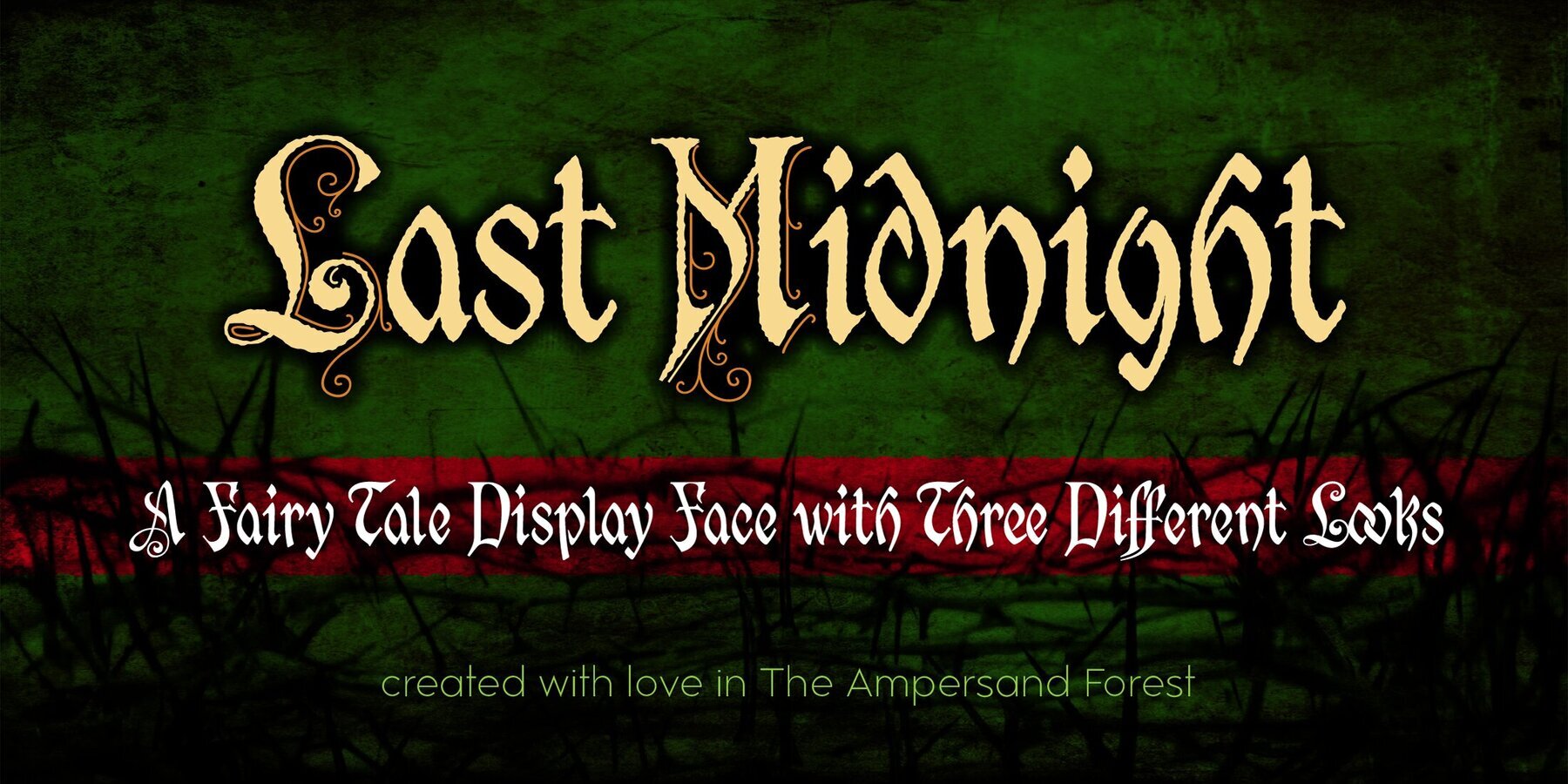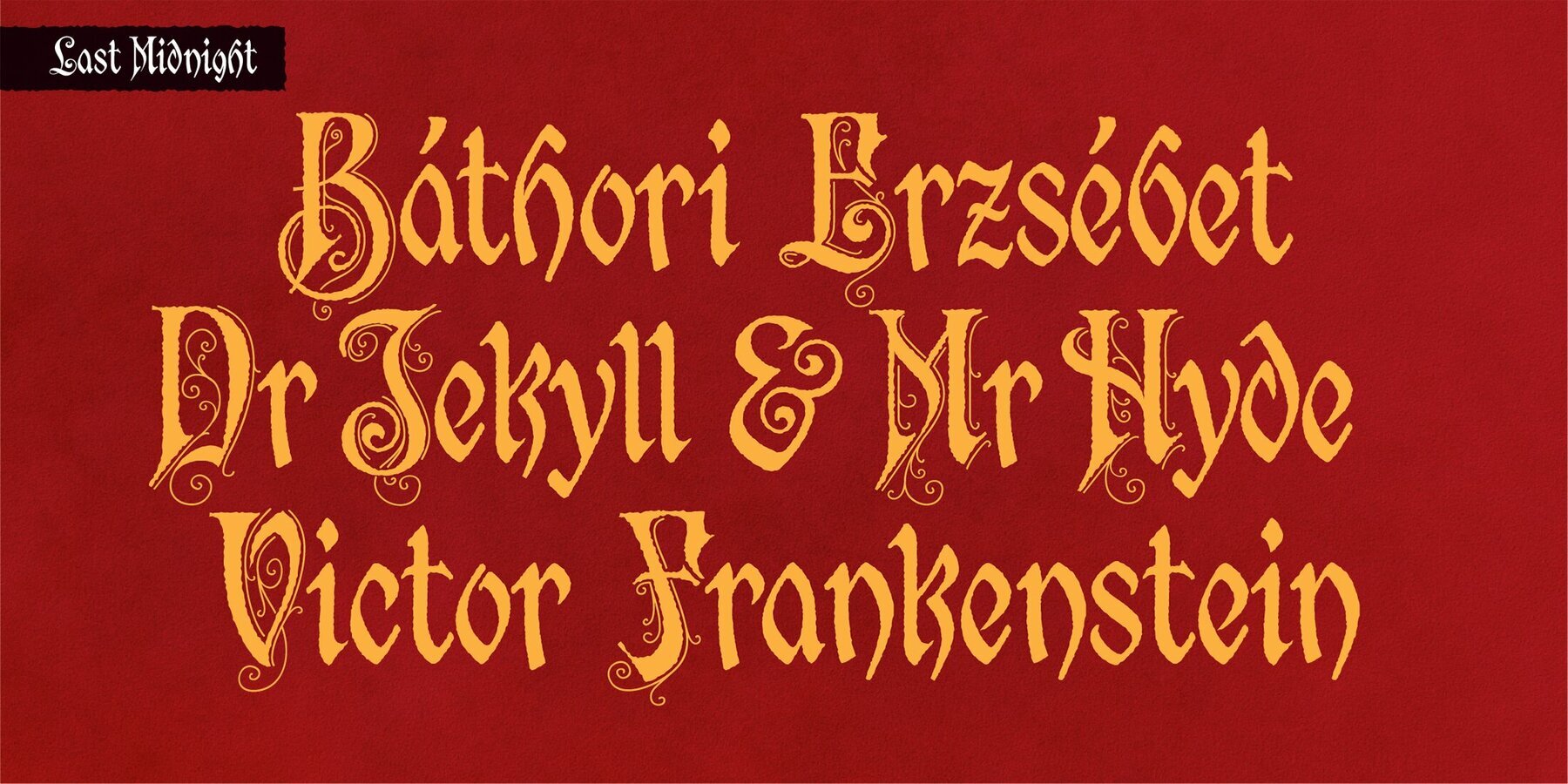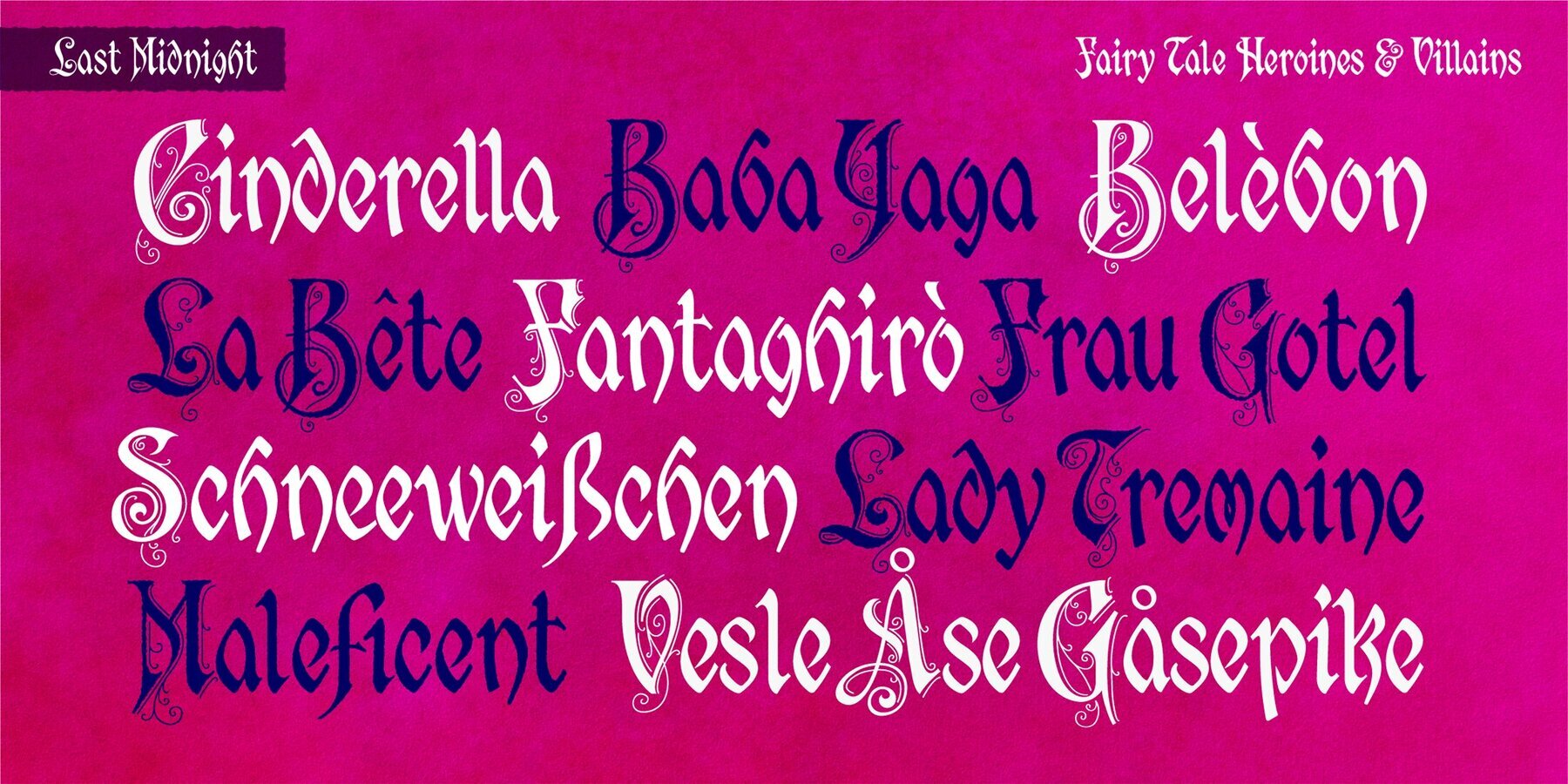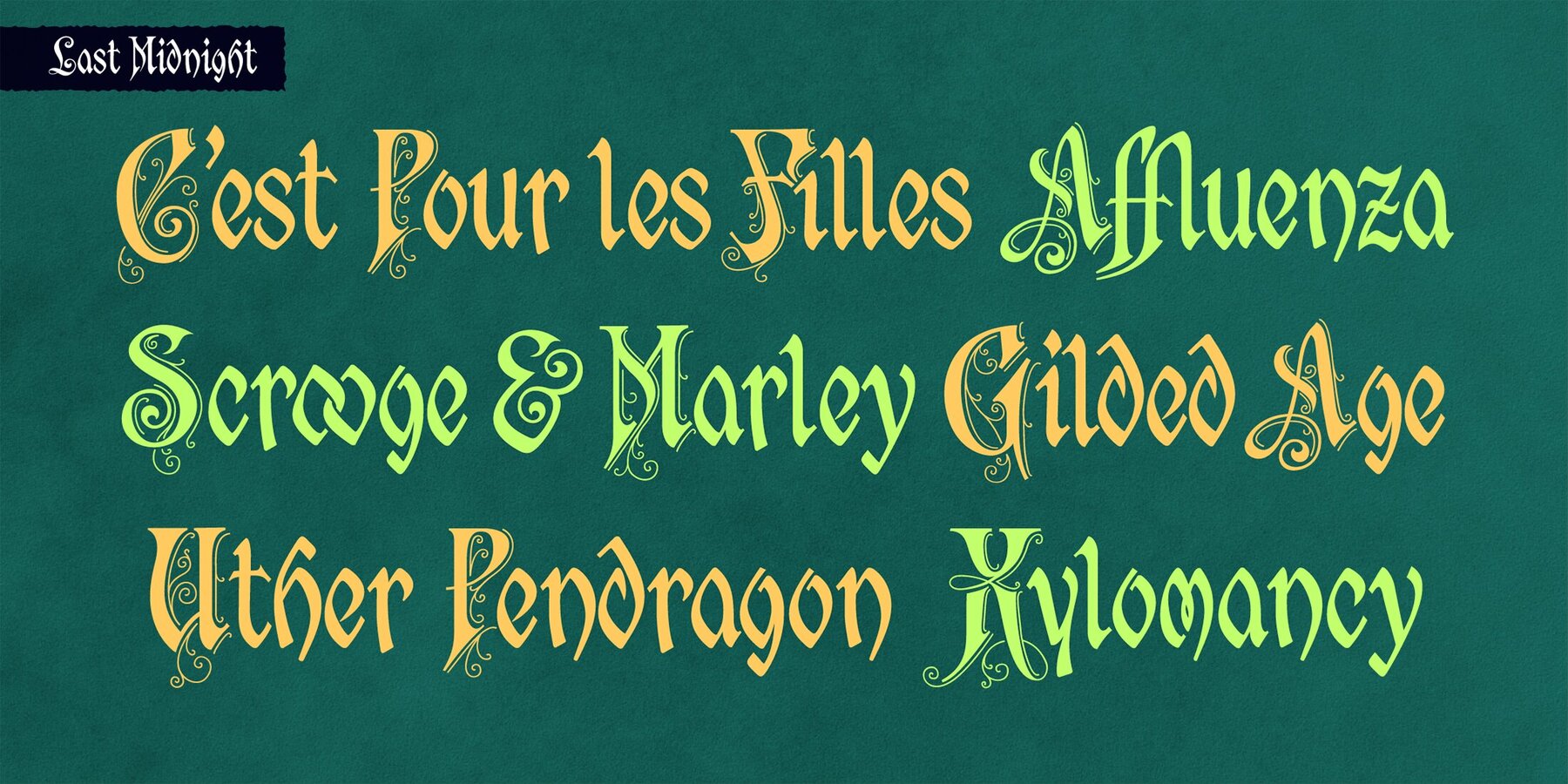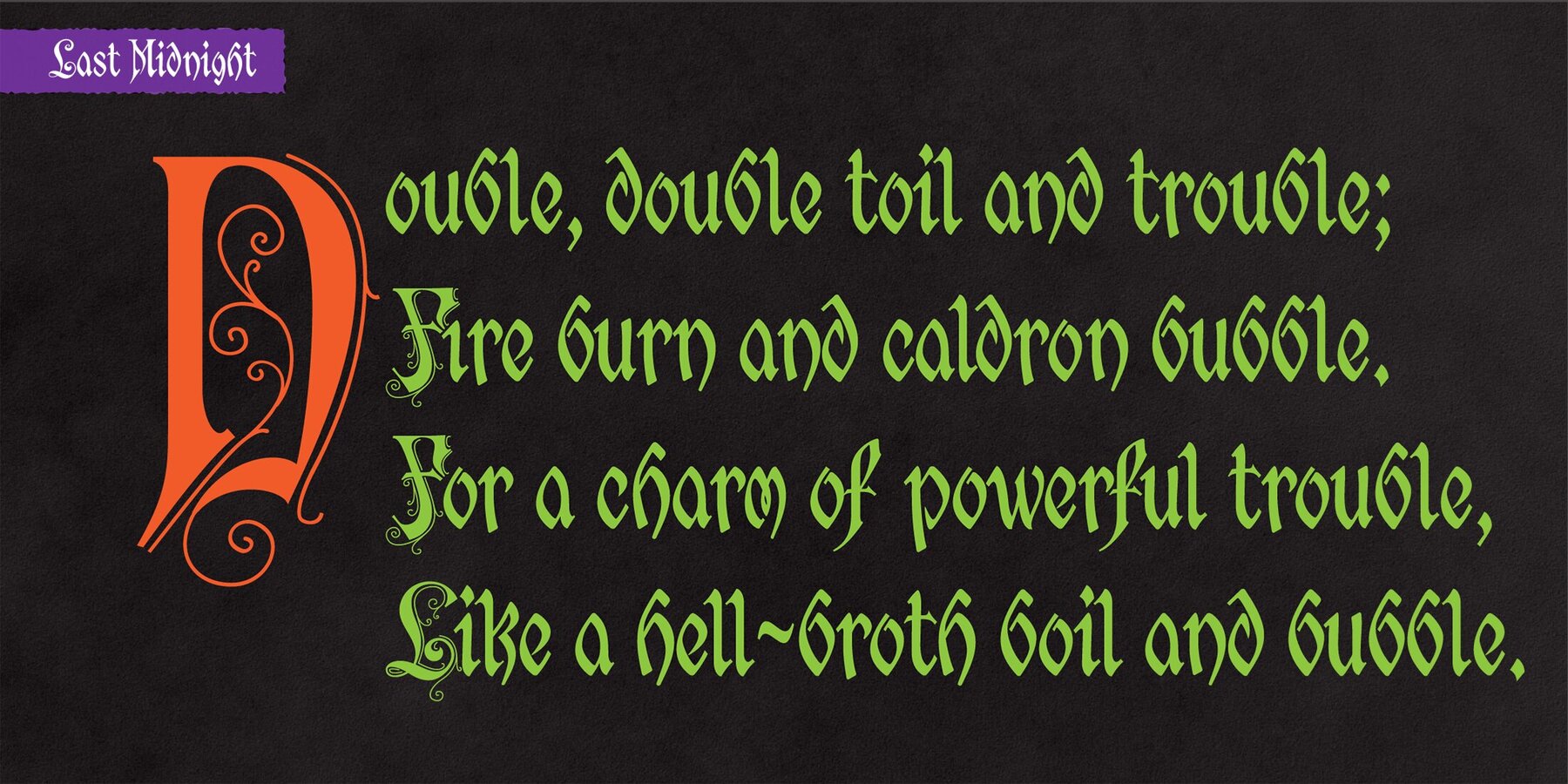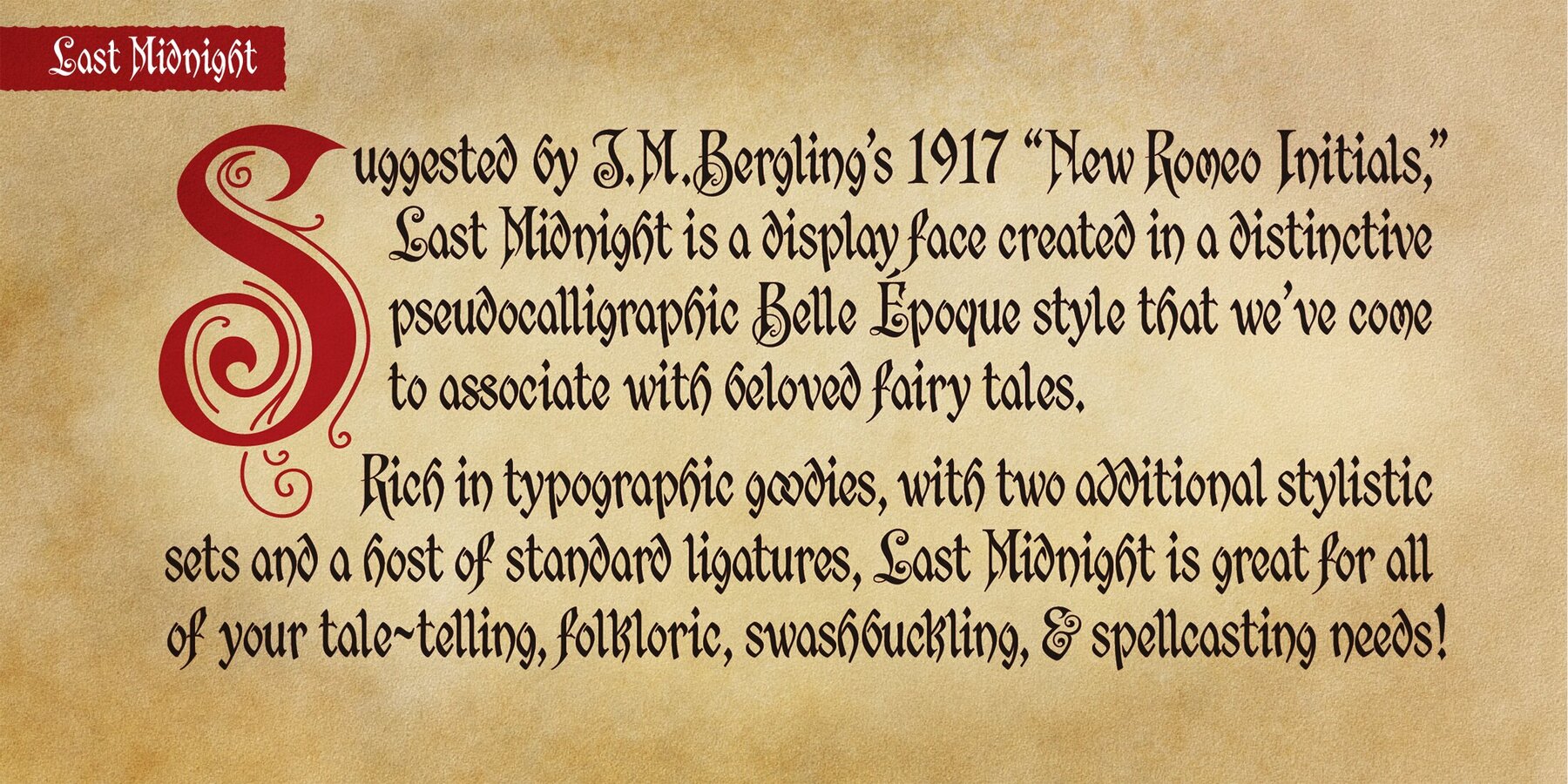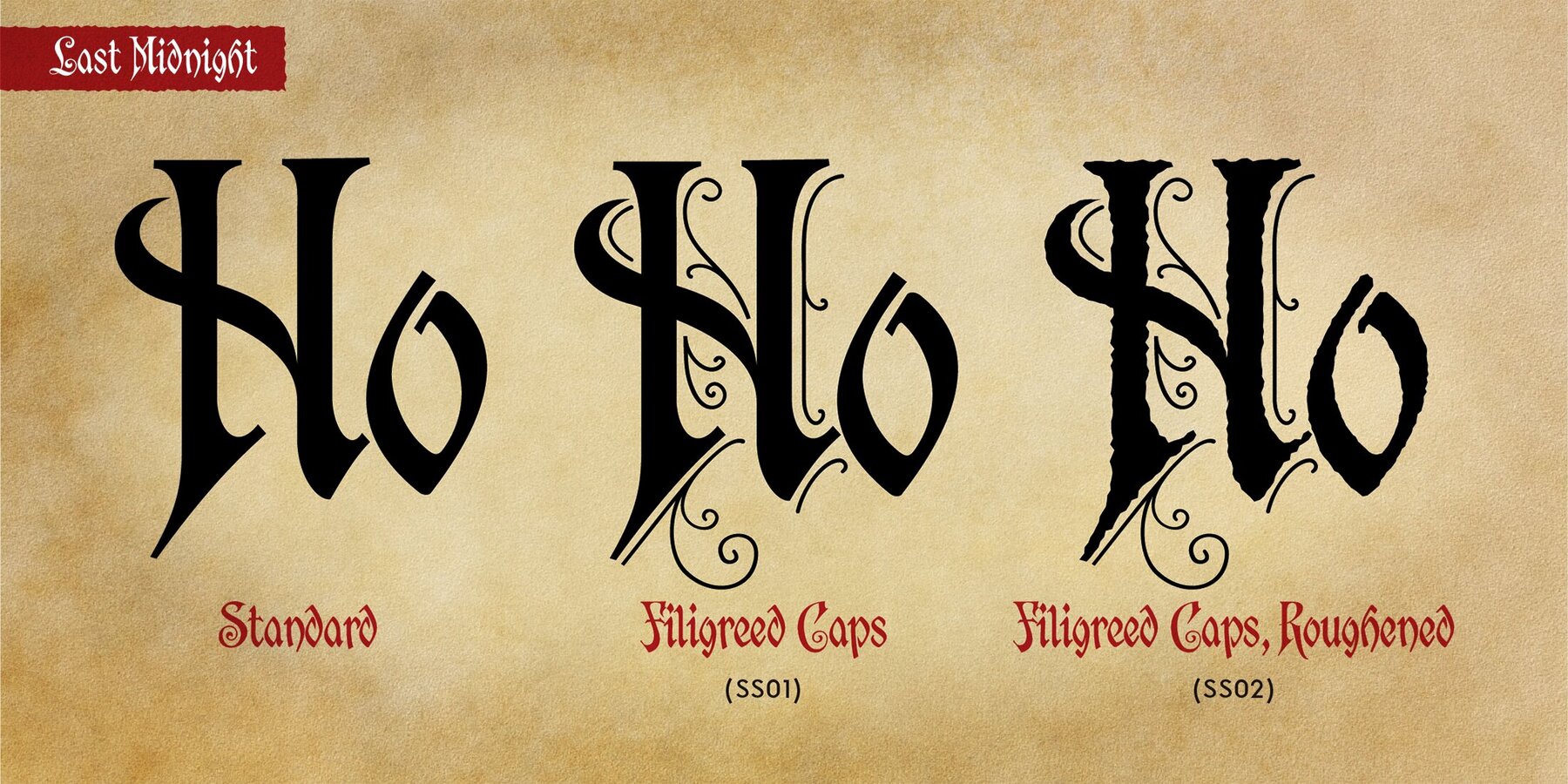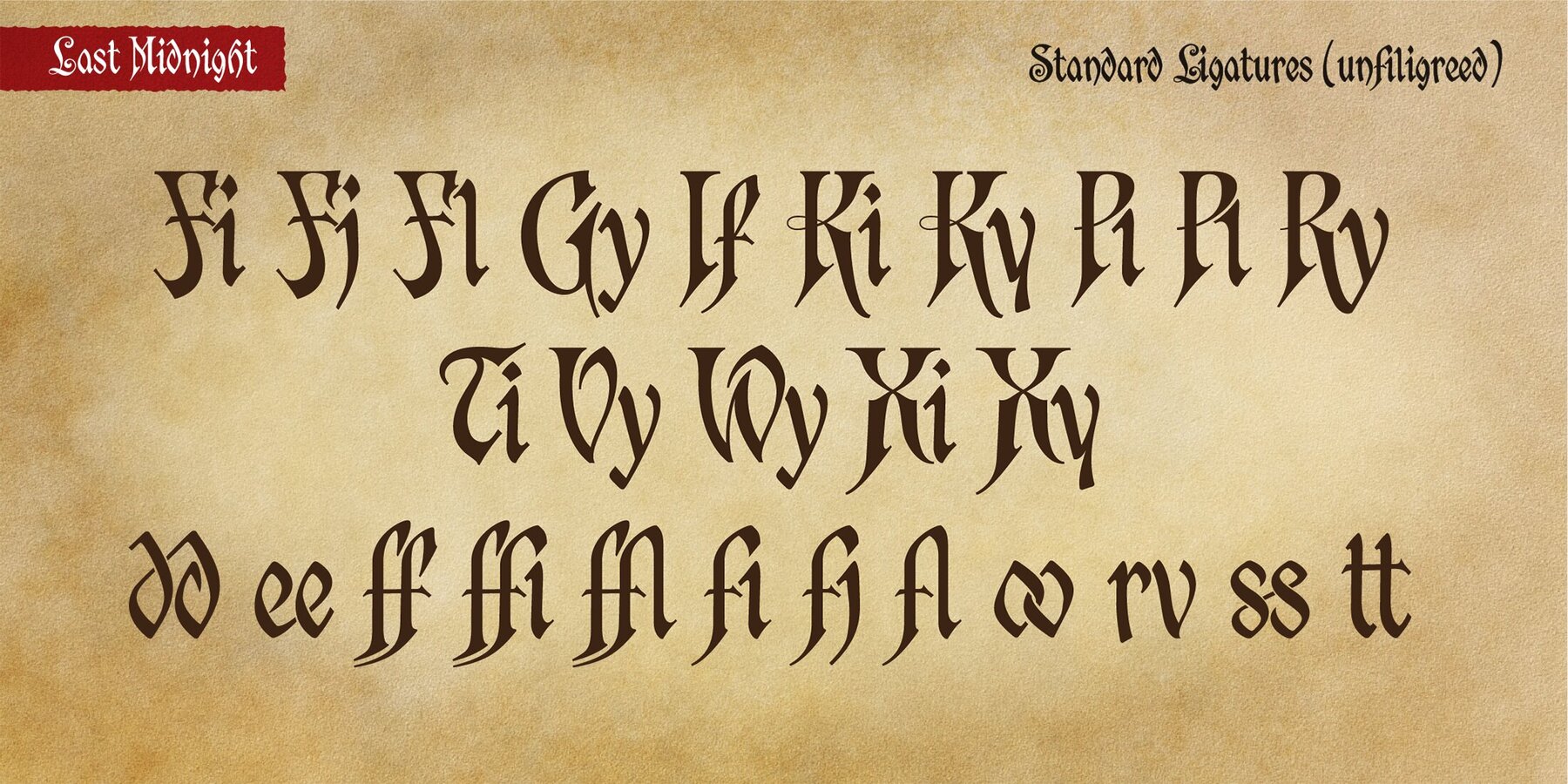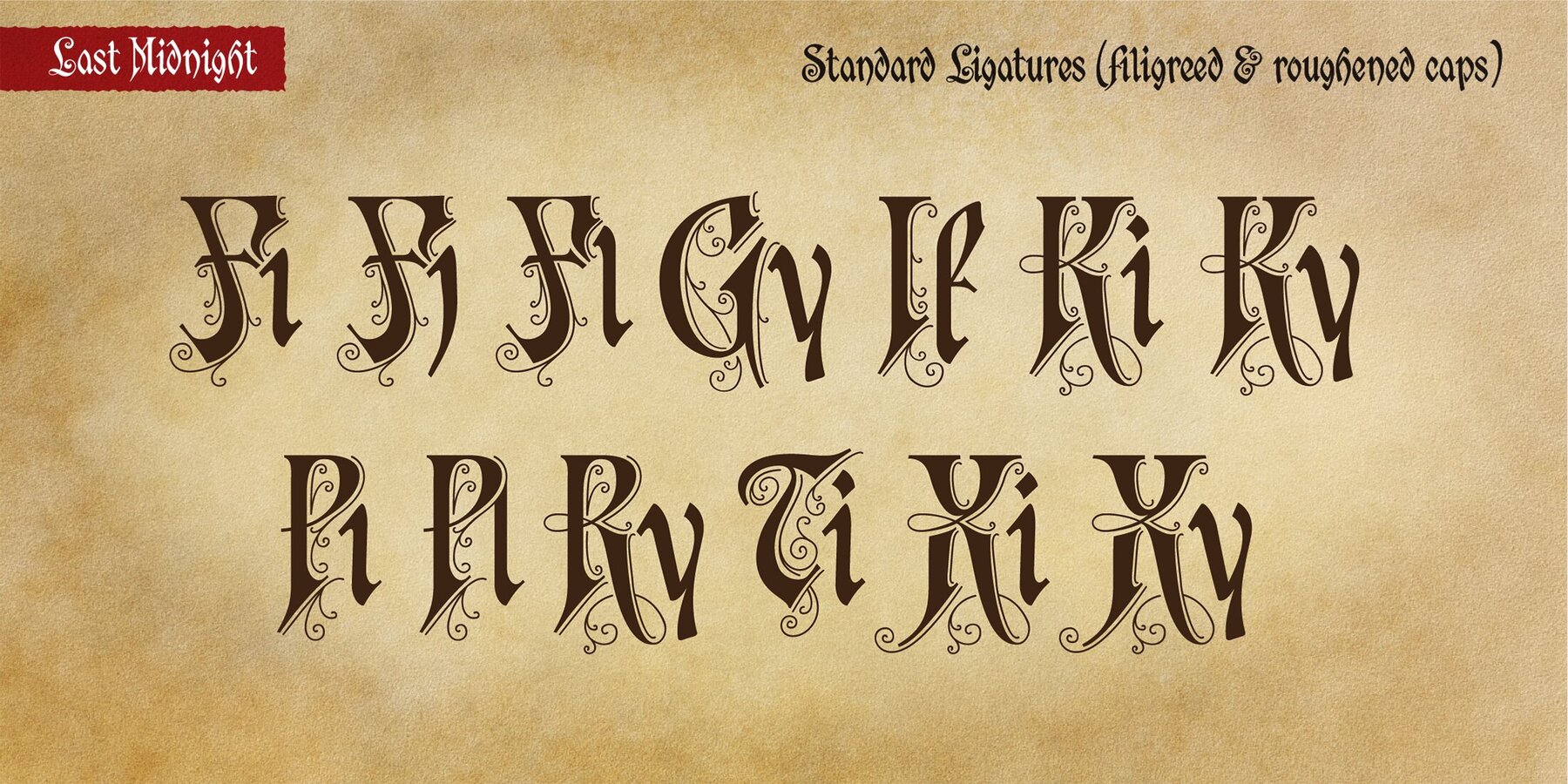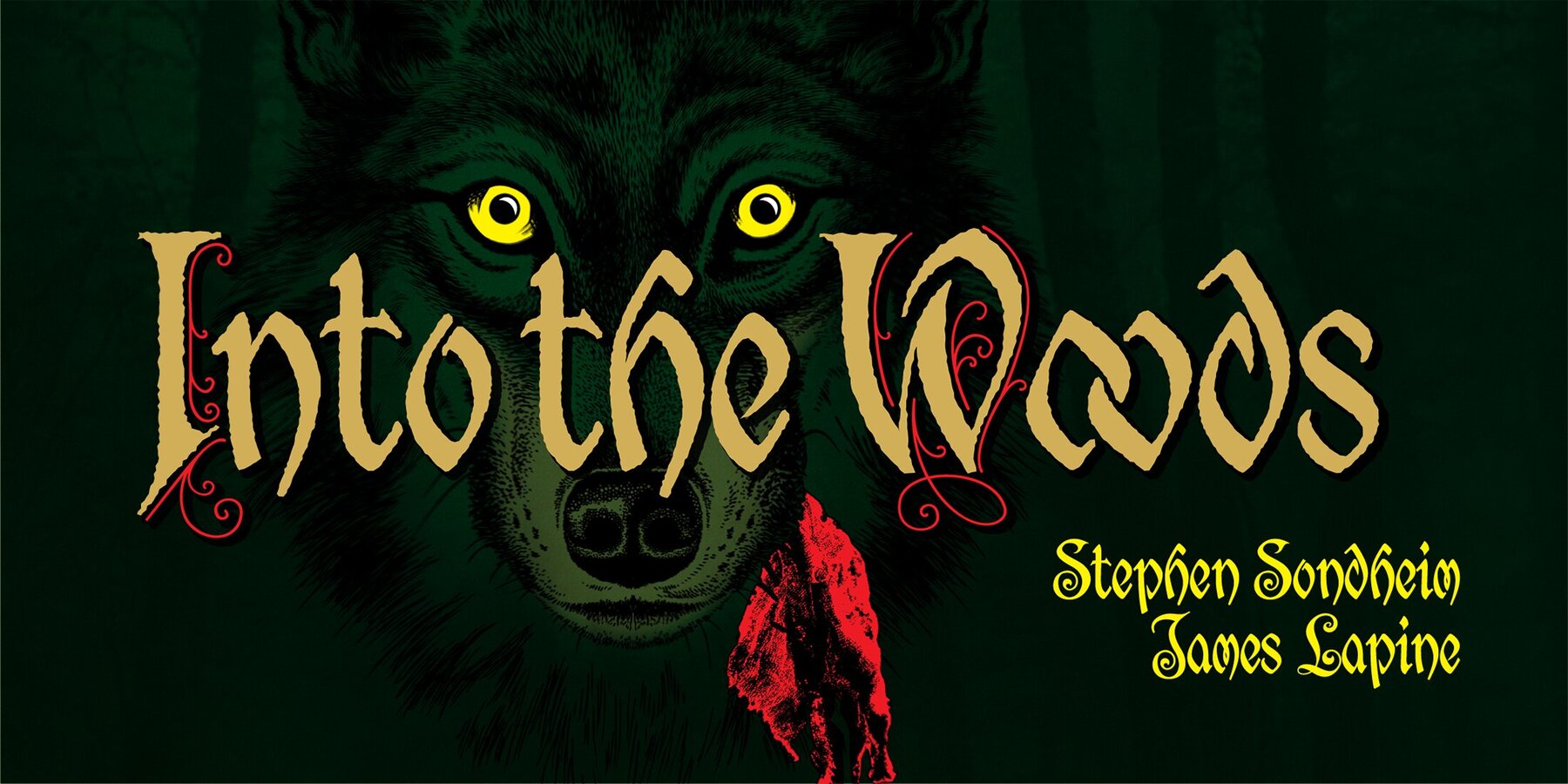
Last Midnight Font
Suggested by J.M.Bergling’s 1917 “New Romeo Initials,” and inspired by Stephen Sondheim & James Lapine’s Into the Woods, Last Midnight is a display face created in a distinctive pseudo calligraphic Belle Époque style that we’ve come to associate with beloved fairy tales.
Rich in typographic goodies, with two additional stylistic sets (one sleek and one rough), a complete set of Roman small caps in smooth and rough, and a host of standard ligatures, Last Midnight is great for all of your tale-telling, folkloric, swashbuckling, & spell casting needs!